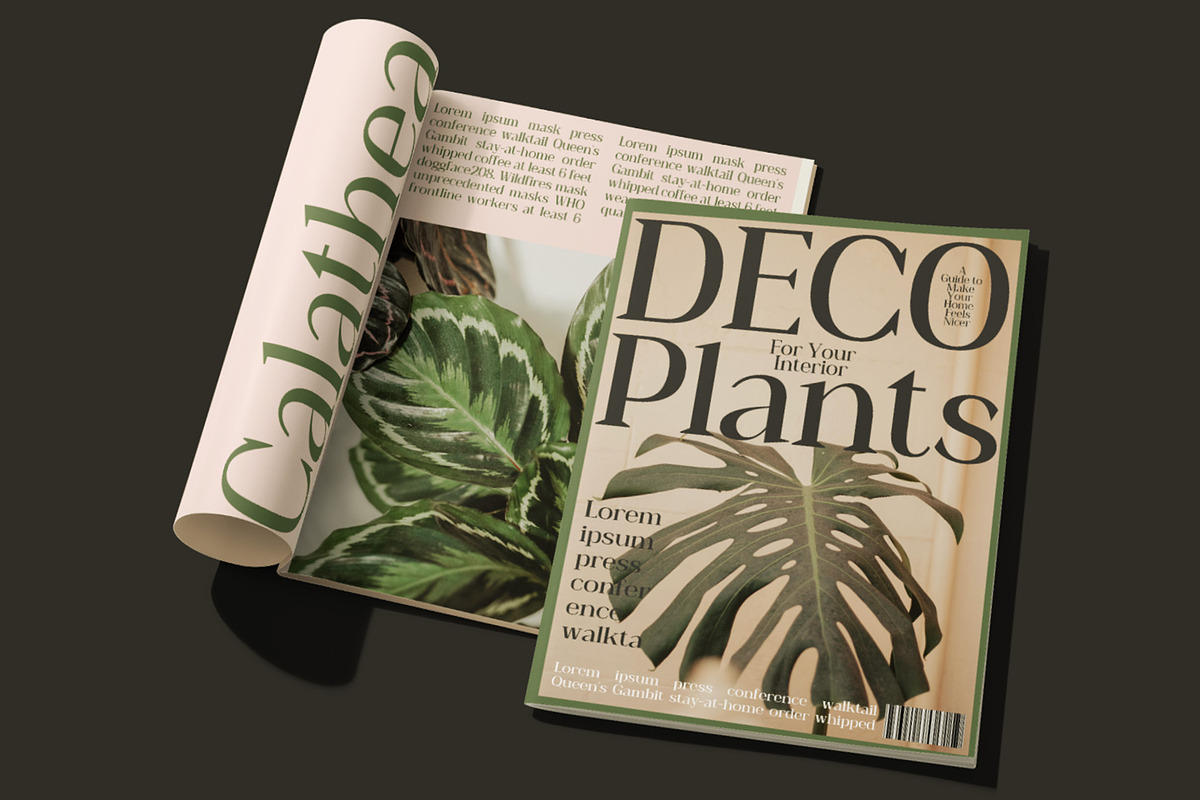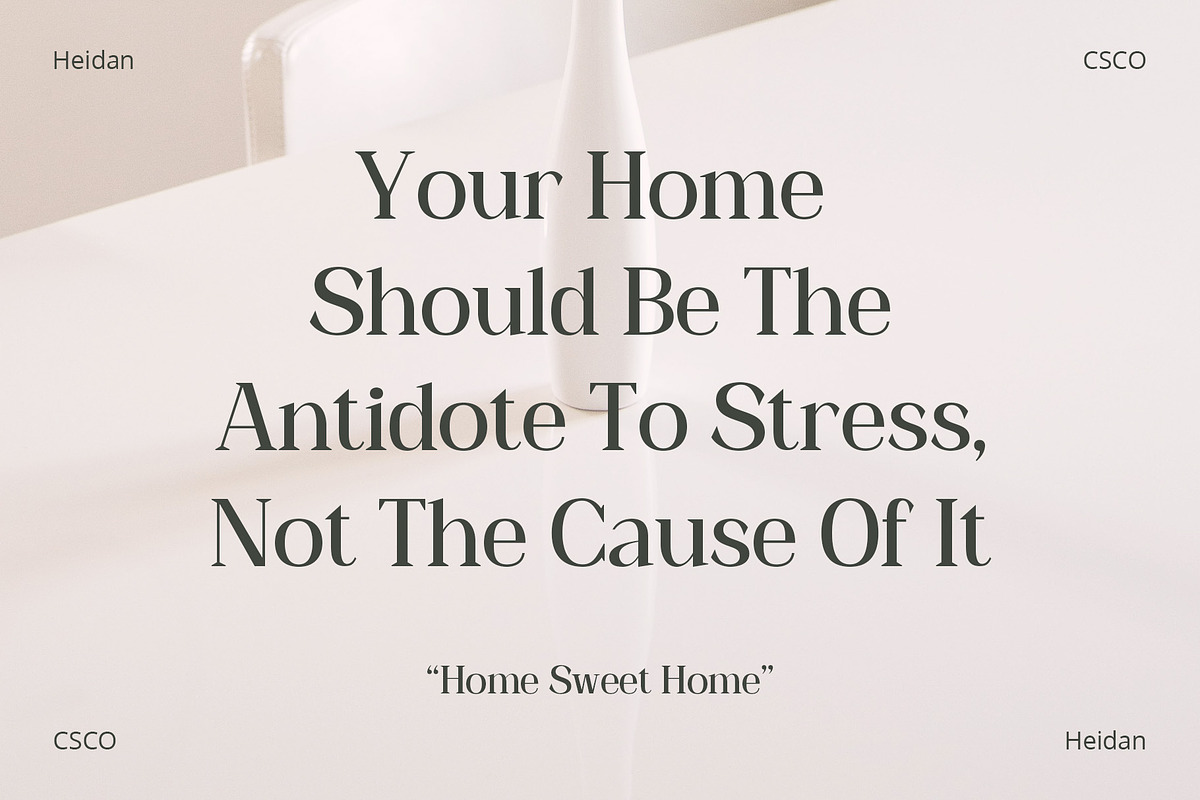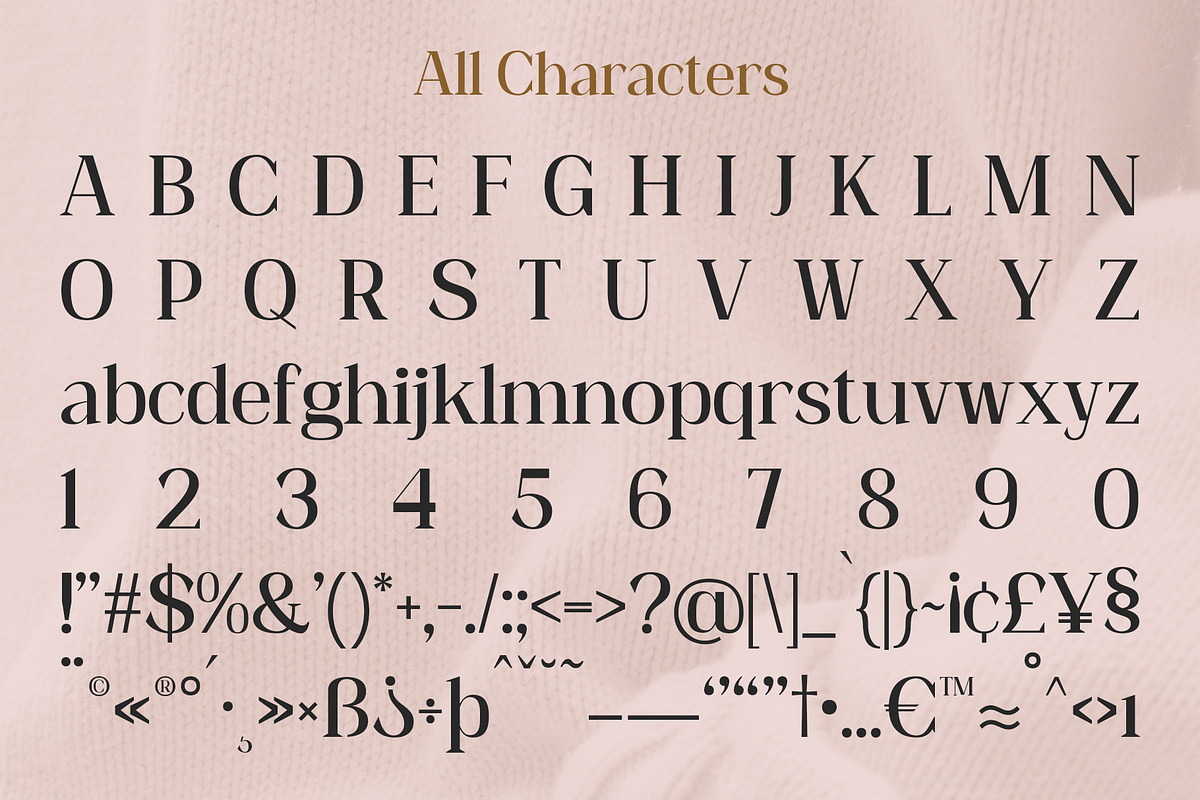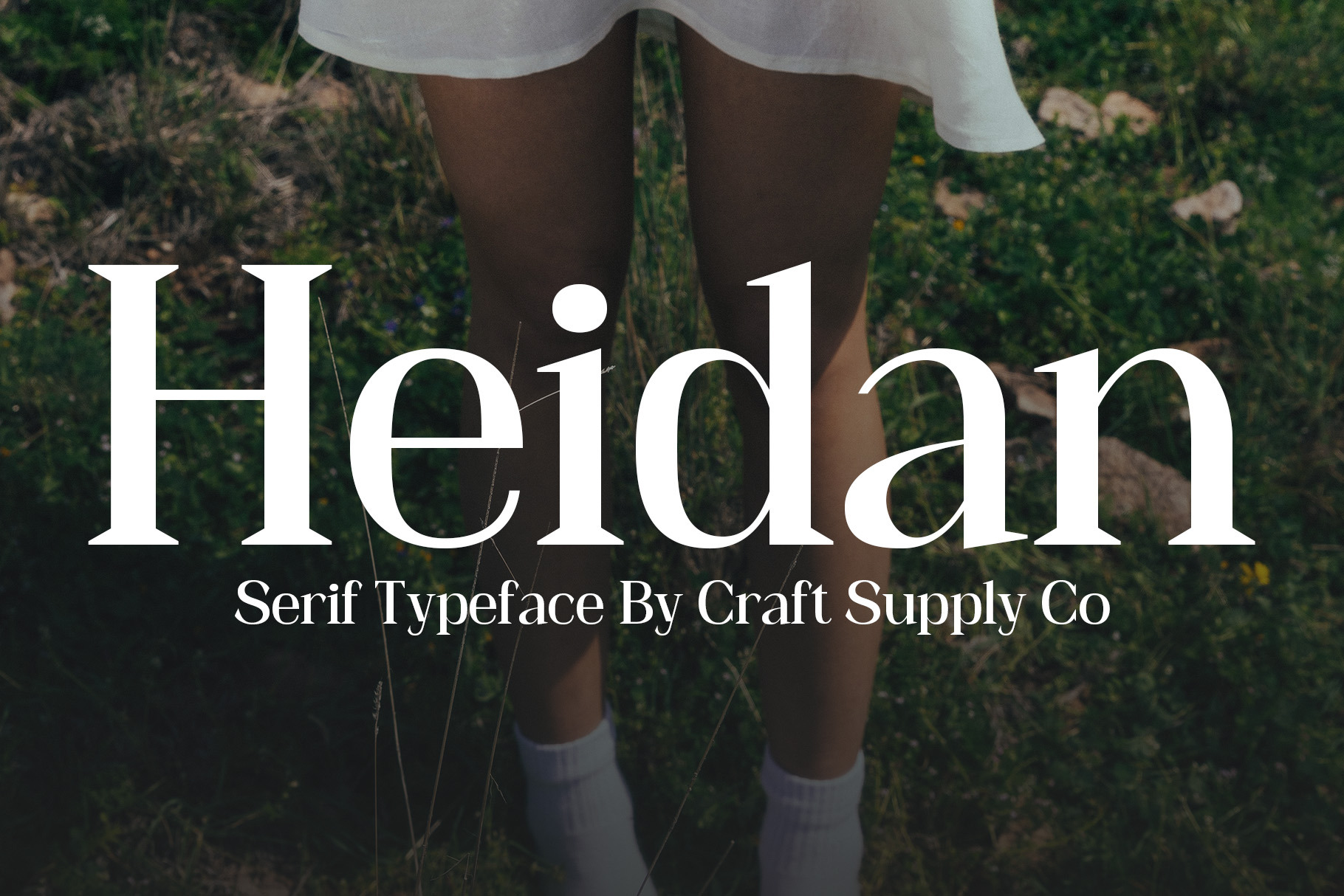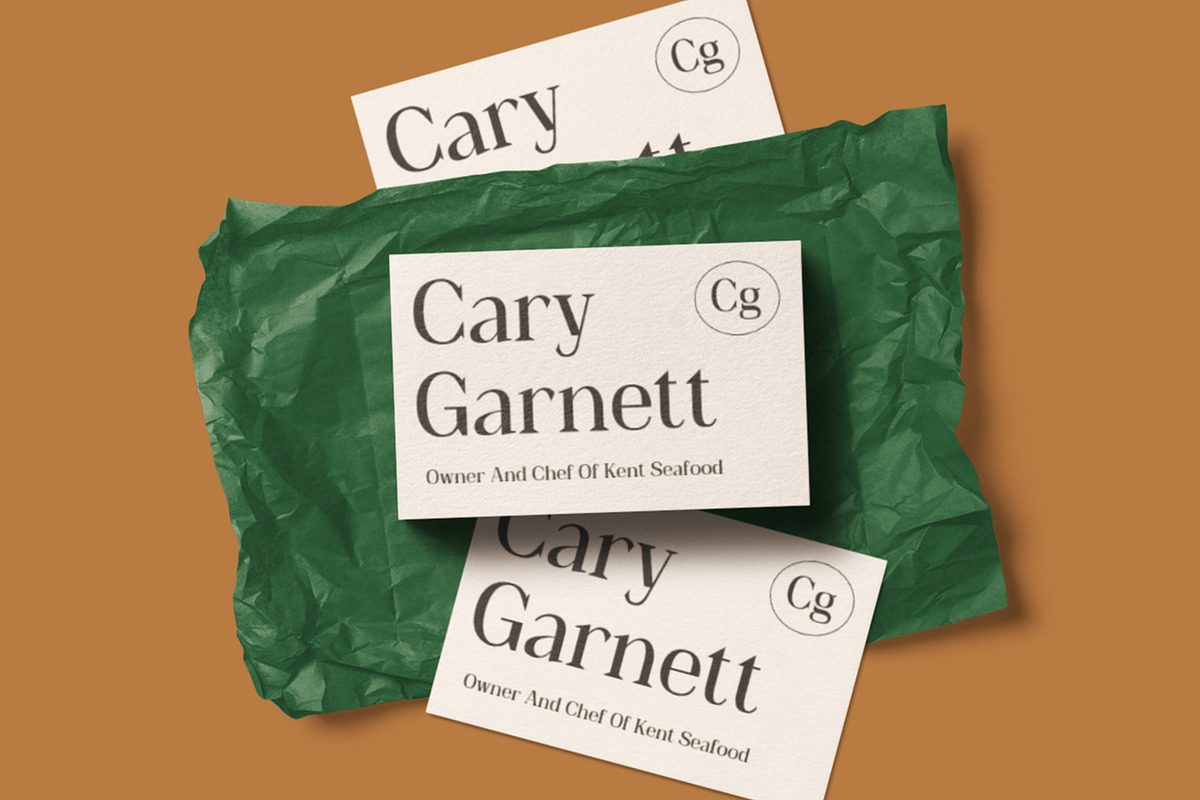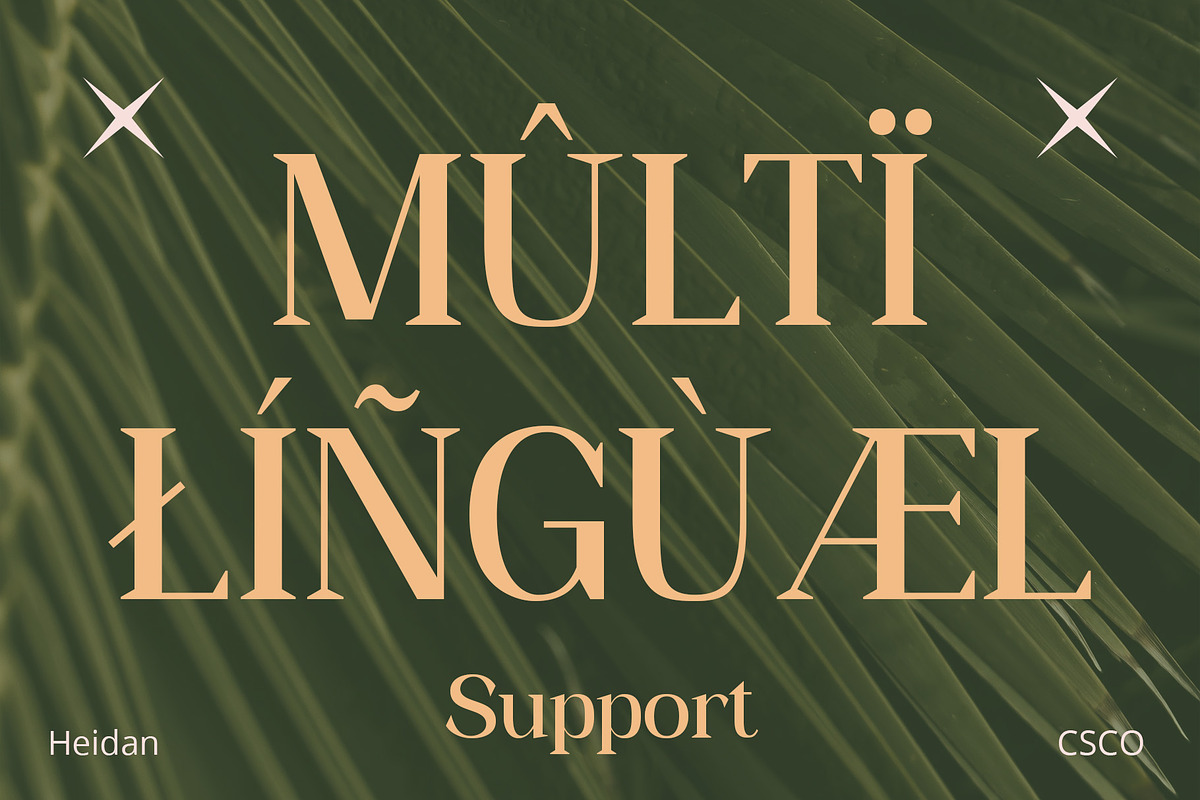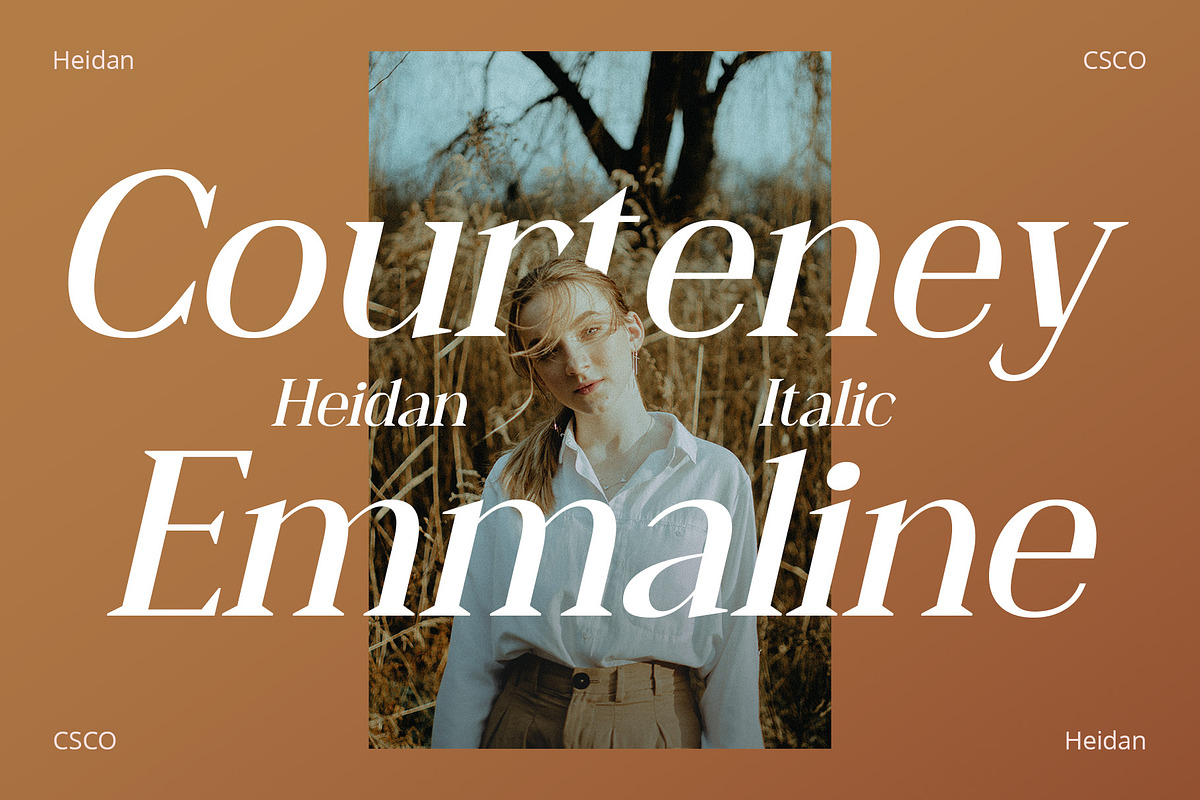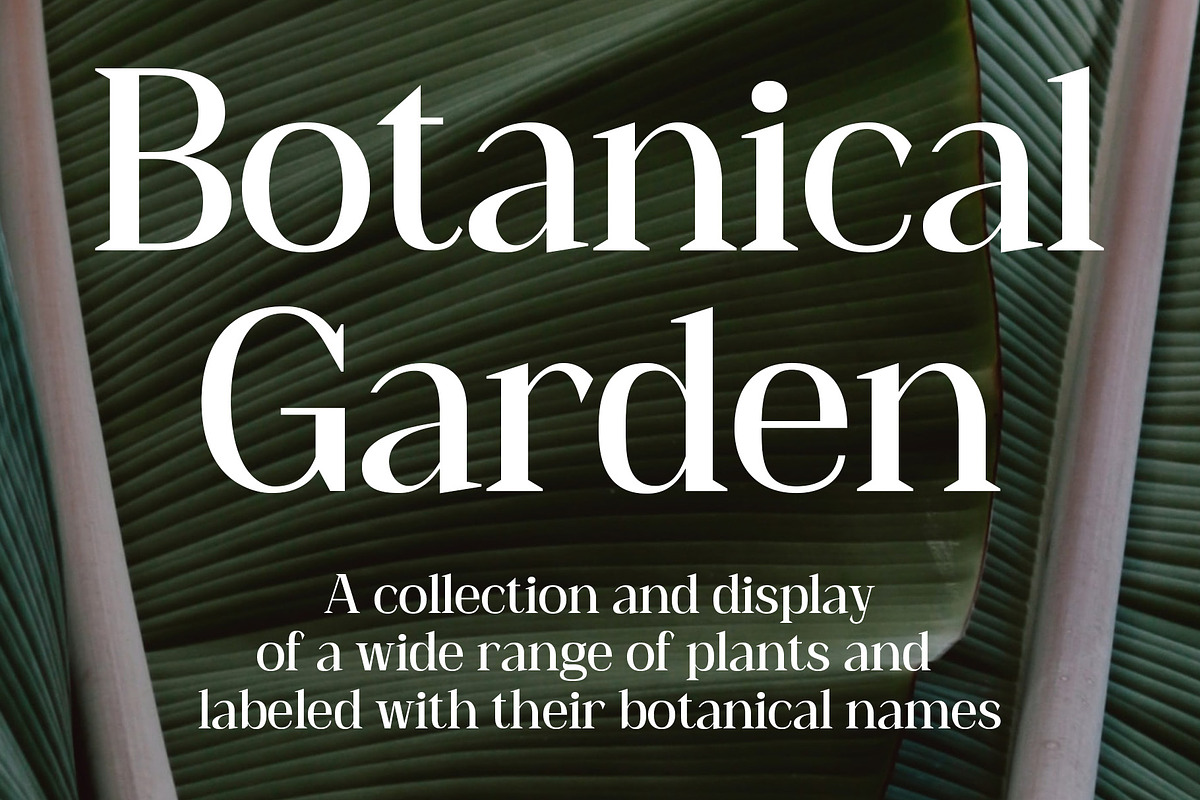
Heidan – Wedge Serif Font
Introduction to Heidan Wedge Serif Font
Heidan – Wedge Serif Font, embodies a classic yet bold style. It’s designed for versatility and impact. The font showcases a traditional serif structure. It’s perfect for both print and digital media.
Distinctive Features
Heidan stands out with its noticeable contrast. The strokes vary in thickness, offering a dynamic feel. Wedge serifs add a unique character to each letter. This font is not just a typeface but an artistic statement.
Versatility and Usability
Heidan’s design ensures readability across various applications. It’s suitable for headings, body text, and branding. The font effortlessly adapts to diverse design needs. It’s ideal for designers seeking a blend of classic and modern.
Accessibility and Appeal
With its straightforward design, Heidan reaches a wide audience. Its simplicity makes it easy to read, yet it retains a strong presence. The font is a go-to choice for projects needing a touch of elegance. Heidan is more than a font; it’s a versatile tool for creative expression.
- Heidan Regular
- Heidan Italic